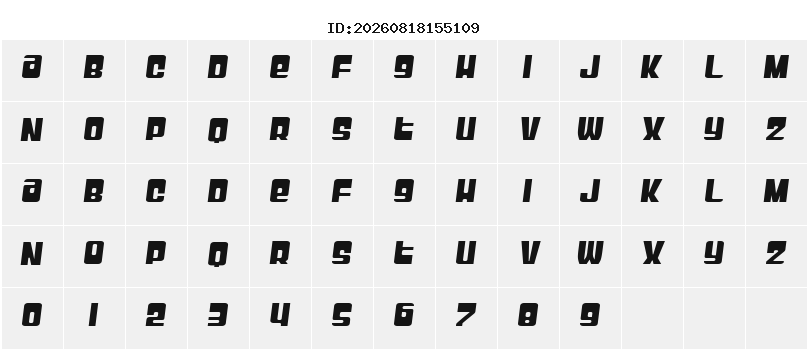
Slickdawg Preview
• Font Name: Slickdawg
• Full Font Name: Slickdawg
• PostScript Name: Slickdawg
About Slickdawg.ttf
Slickdawg.ttf is a modern, elegant sans-serif font designed for ultimate readability and visual harmony. Perfect for branding, headlines, web design, and print materials.